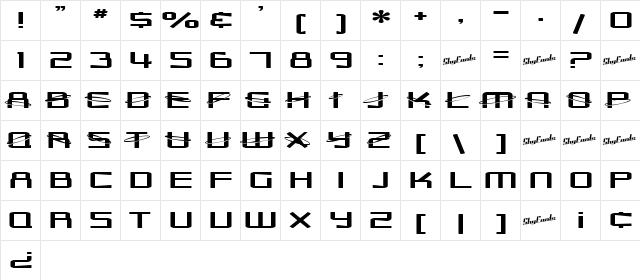
SF Outer Limits ExtUpright Regular
Design Context for SF Outer Limits ExtUpright Typeface
SF Outer Limits ExtUpright is a composed and adaptable typeface that performs quietly and consistently across a wide range of design contexts.
Pro Tip: Use SF Outer Limits ExtUpright in both headline and body roles to test its range before committing to a single application.